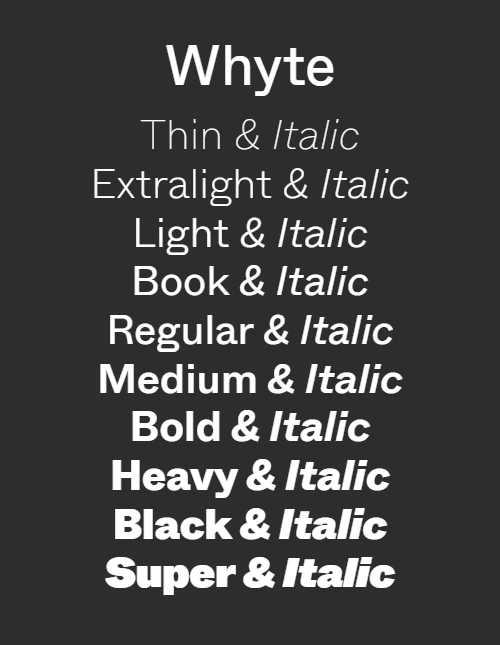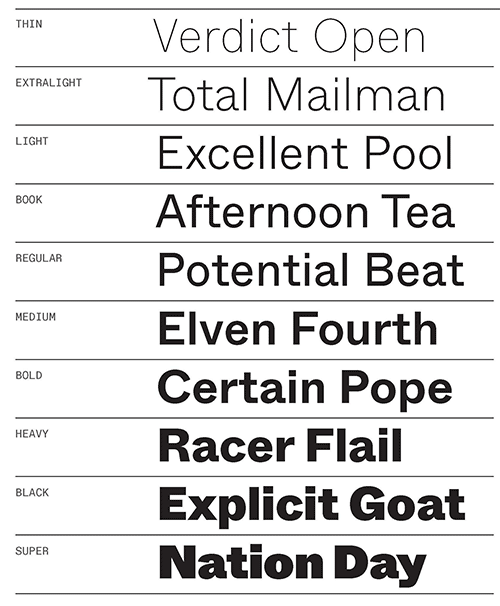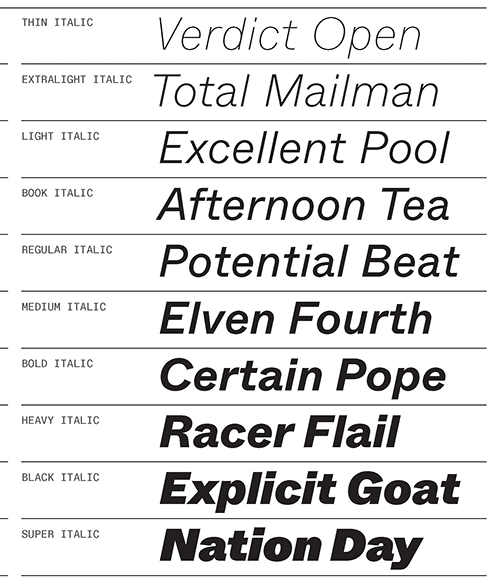
Whyte - 20 Styles Font Family
- Whyte is a contemporary grotesque typeface filled with idiosyncrasies and character, and it’s available as two distinctive subfamilies. ABC Whyte has smooth and sharp transitions, while ABC Whyte Inktrap has ink traps at its joints. Ink traps were necessary during the hot metal type printing era, in order to improve the quality of printed text. Using variable font technology, users are able to deepen or shorten the ink traps of this typeface for the first time, sliding from deep wells to shorter cuts. In doing so, Whyte transforms something once functional into a beautiful design detail in its own right.